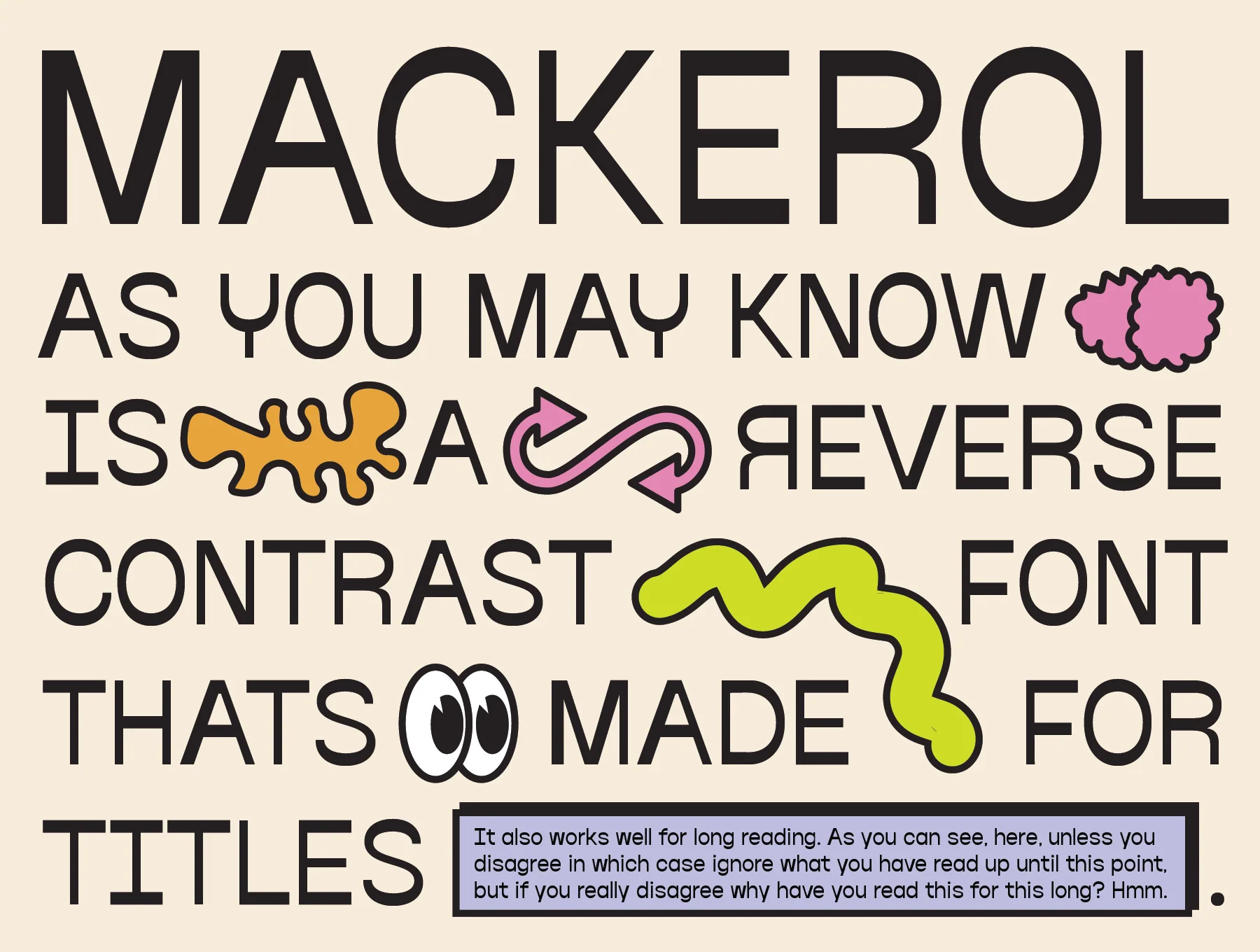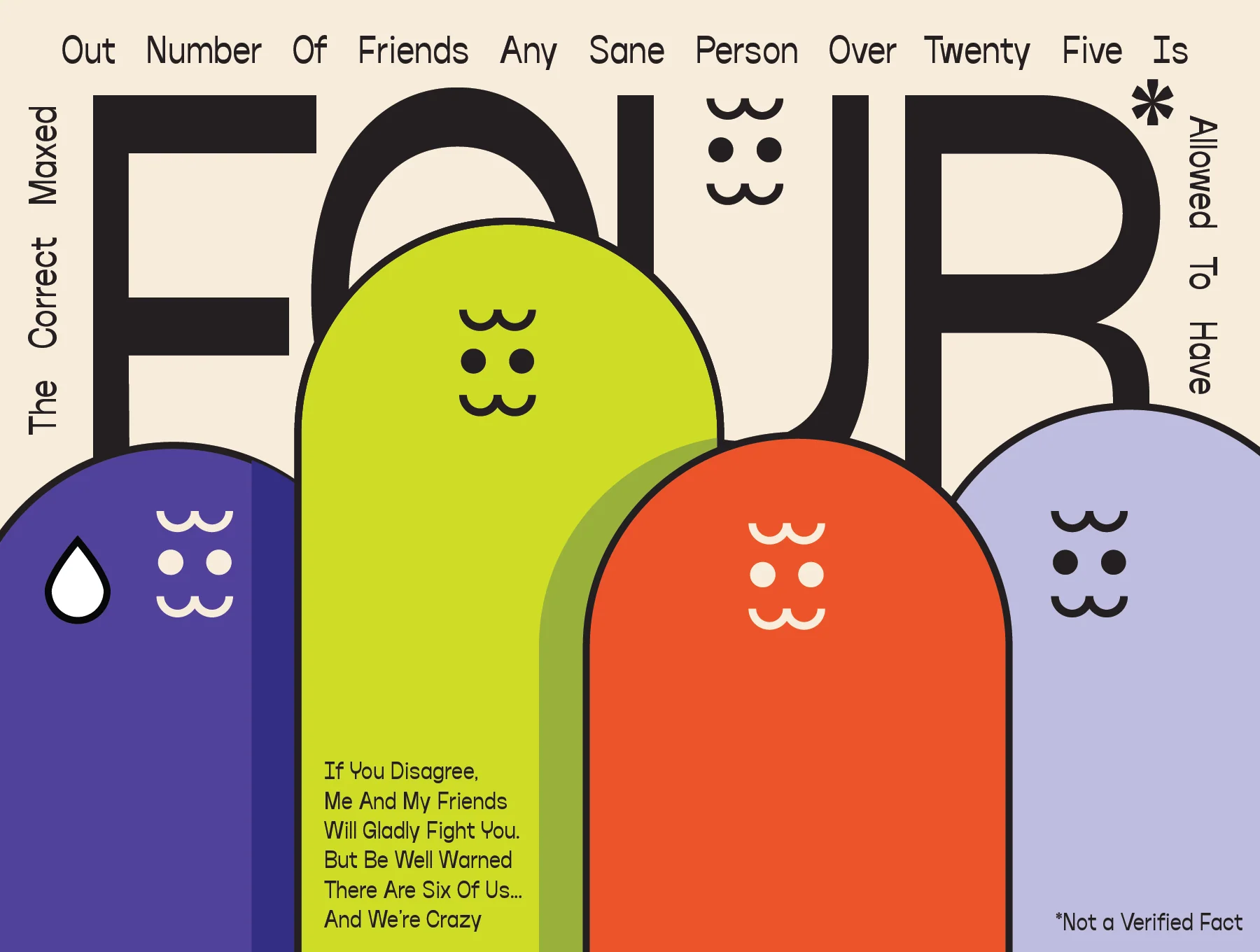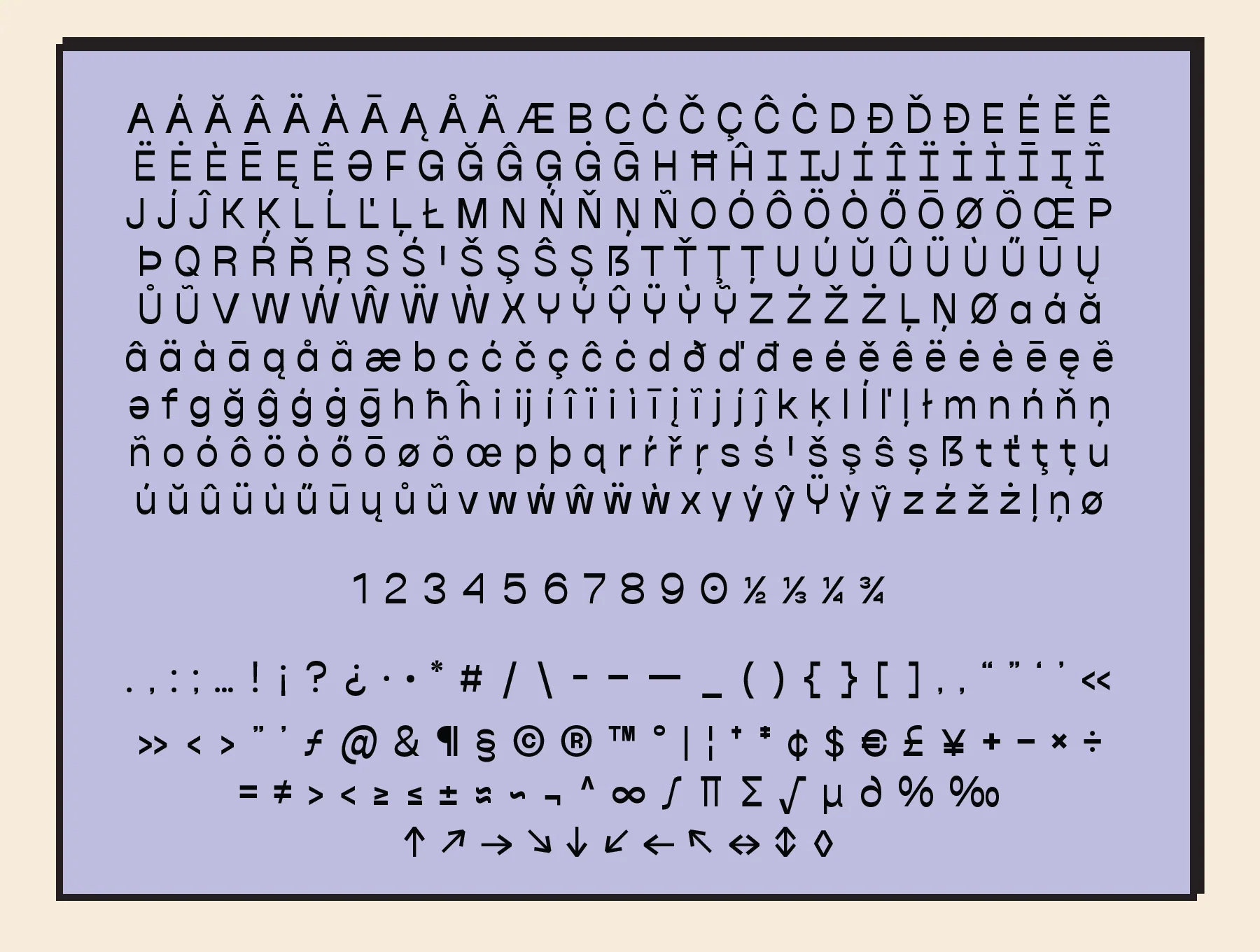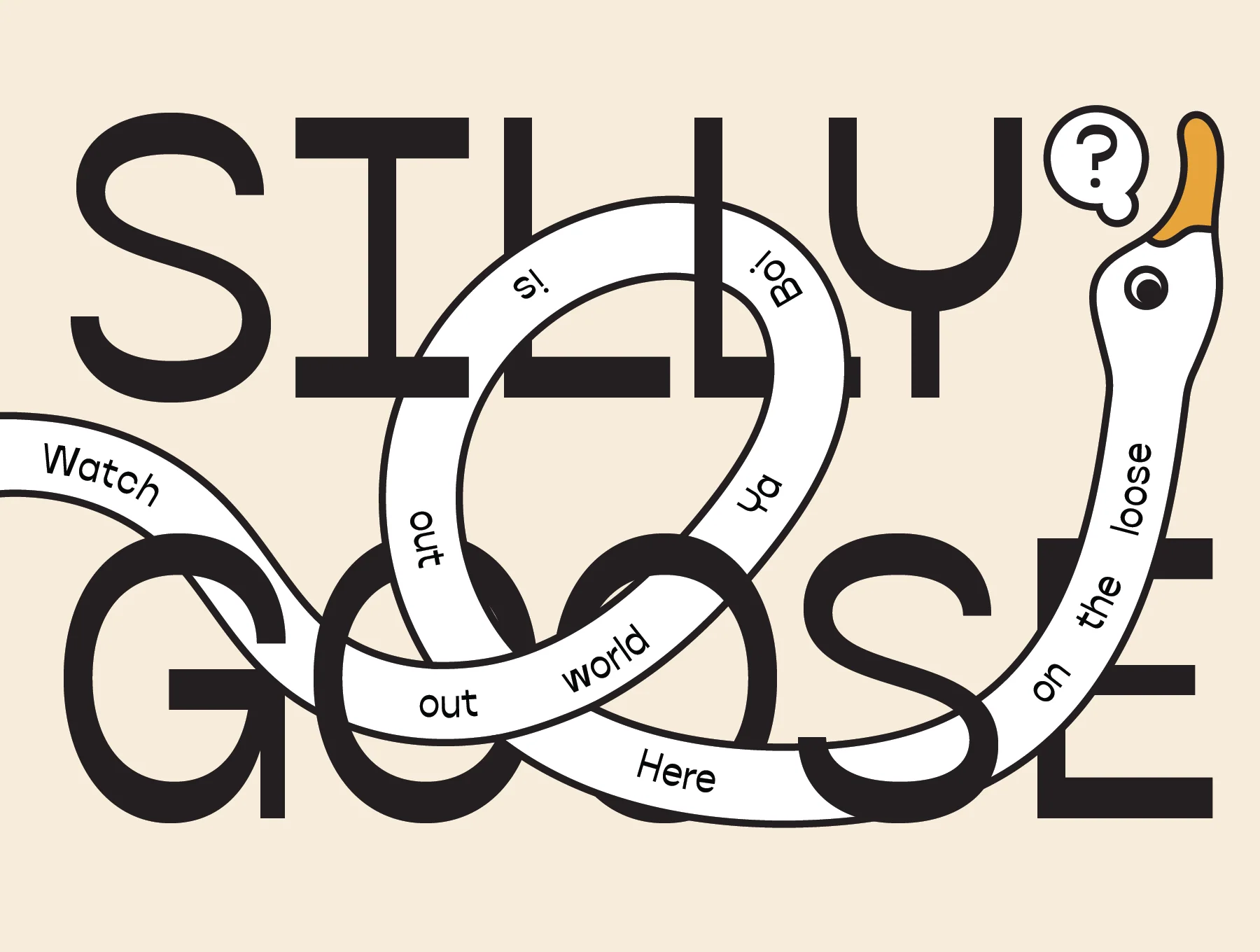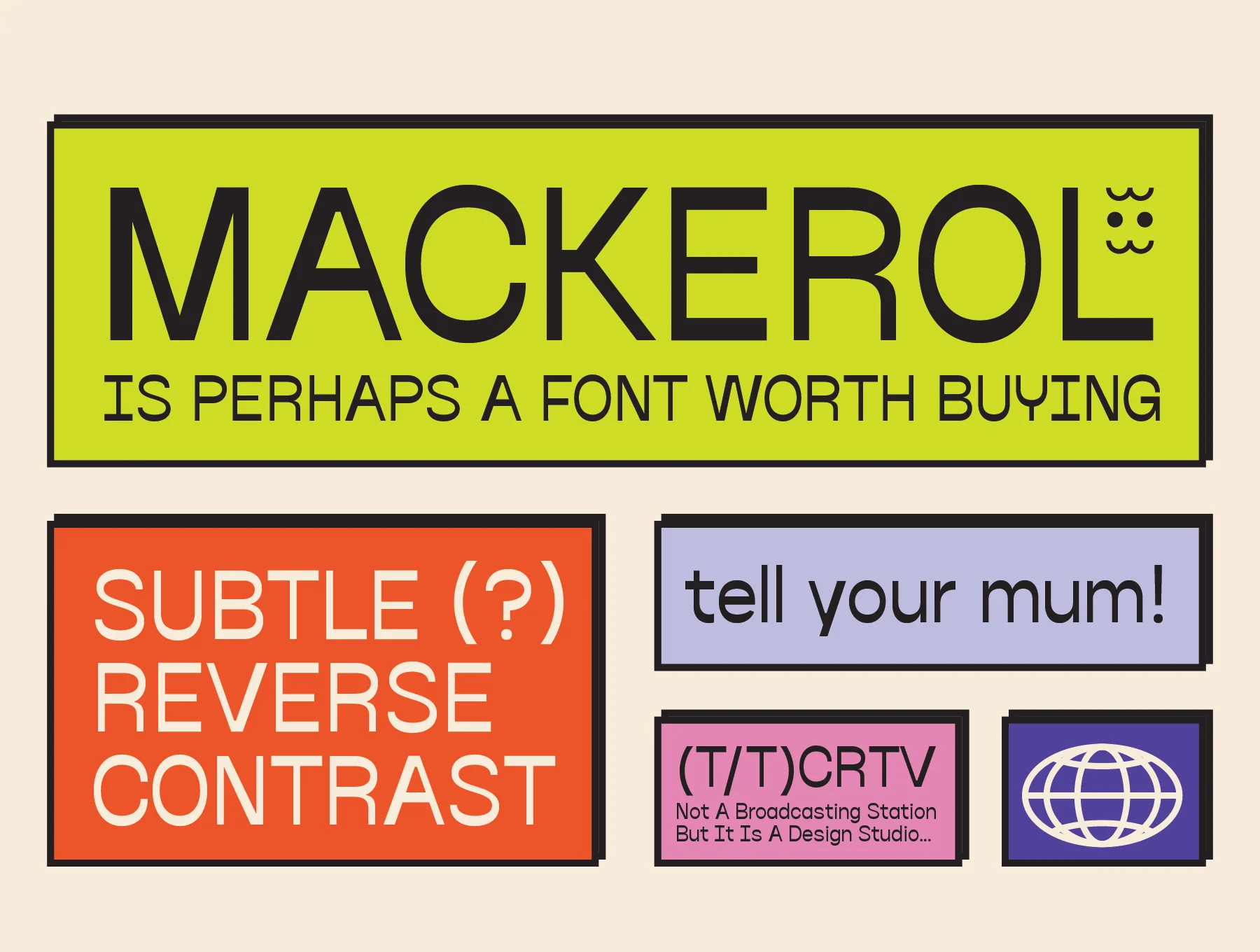
Mackerol Reverse Contrast Font
Mackerol is delightfully eccentric
Serif-Free Style
Mackerol is a reverse-contrast typeface crafted for titles, displays, headlines, and body copy. Its fresh spin on an eccentric style brings playful character to branding, logos, magazines, Instagram posts, posters, and more, giving designs a fun, cool, laid-back feel.